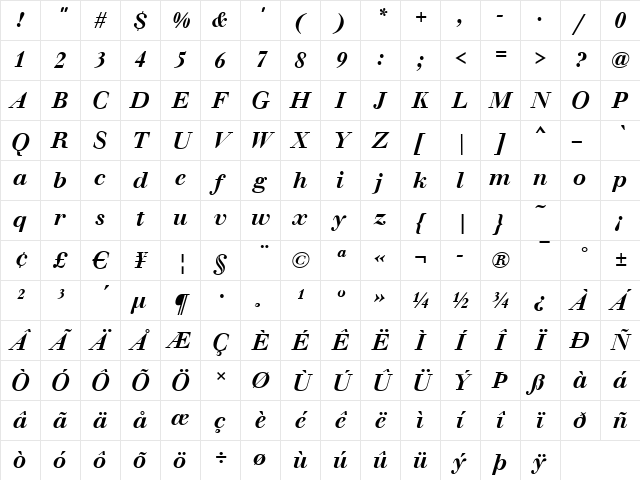
Complete Walbaum-Original-Medium Italic glyph index. Displaying only characters natively supported by Walbaum-Original-Medium Italic font.
Walbaum-Original-Medium is a composed and adaptable typeface that performs quietly and consistently across a wide range of design contexts. The slanted form adds forward momentum and visual energy.
Pro Tip: Use Walbaum-Original-Medium for emphasis, pull quotes, and subheadings where its slanted energy can add rhythm to the layout.